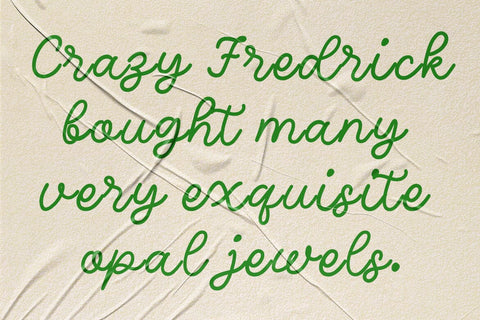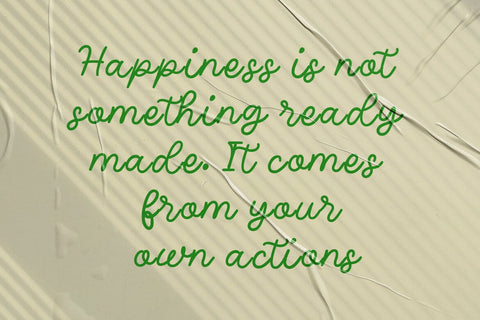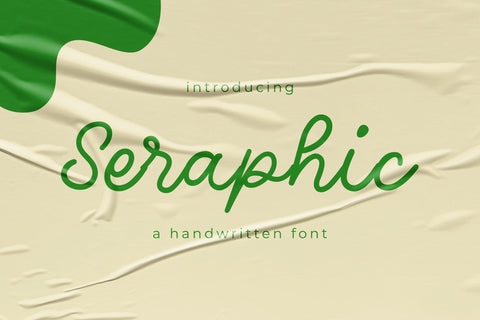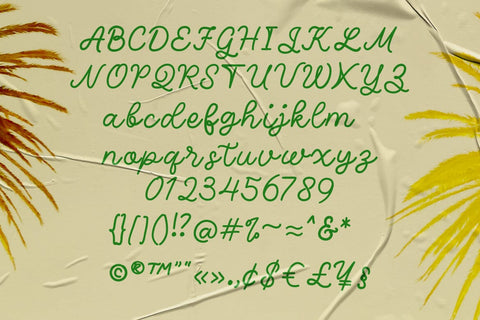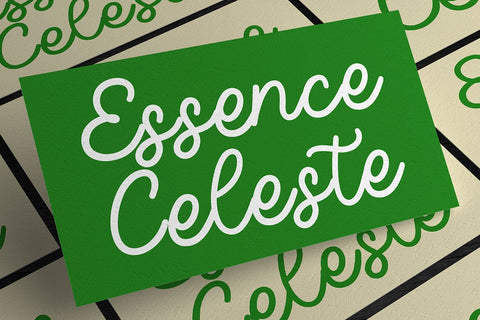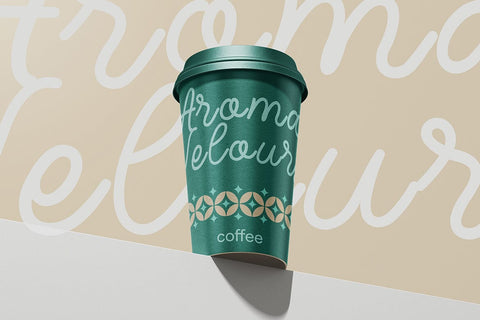
Seraphic - Script Font
Seraphic is a handwritten font. It looks stunning on wedding invitations, thank you cards, quotes, greeting cards, logos, business cards and every other design which needs a handwritten touch.